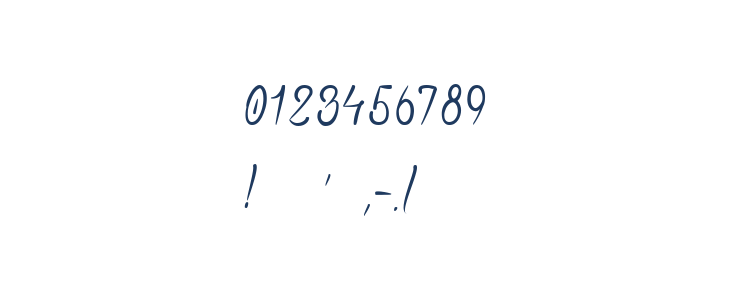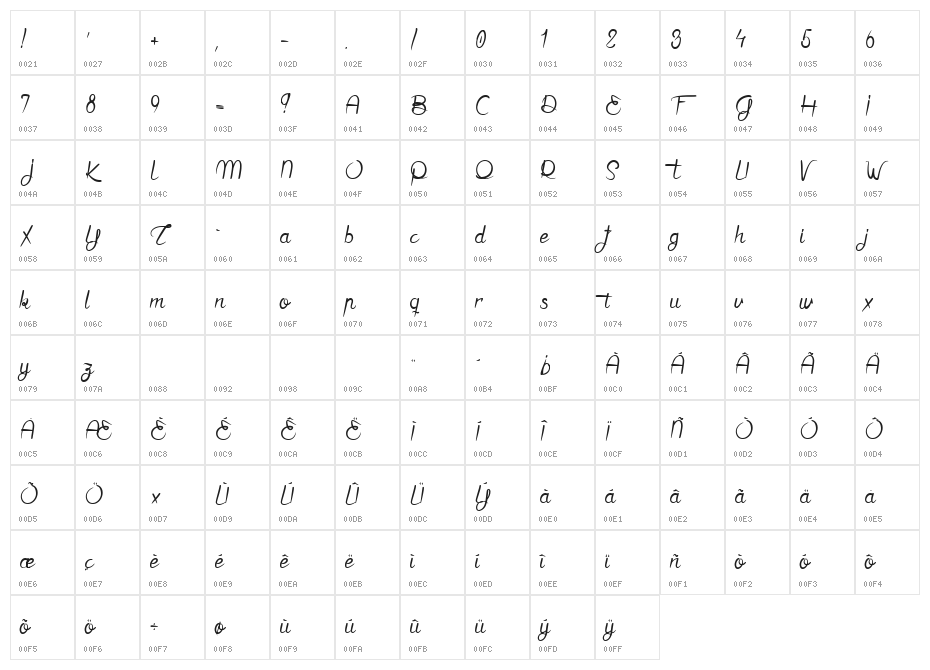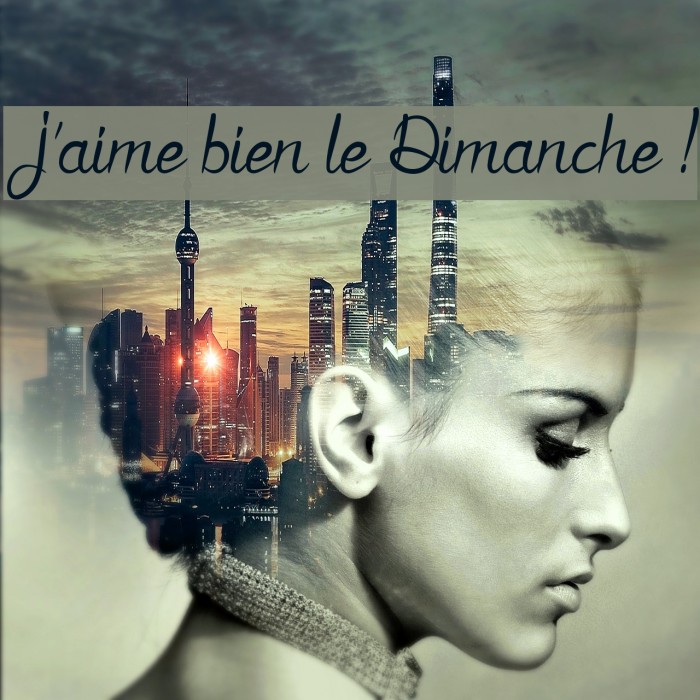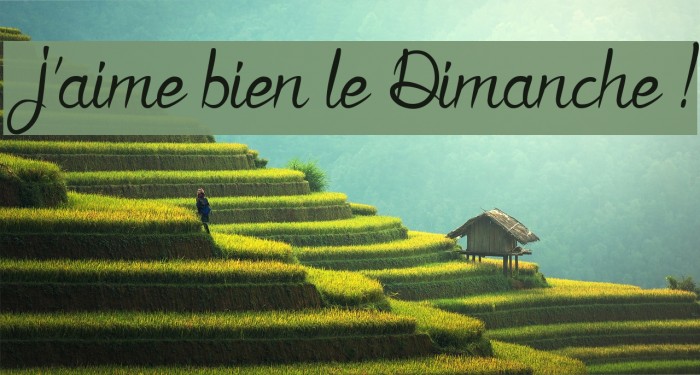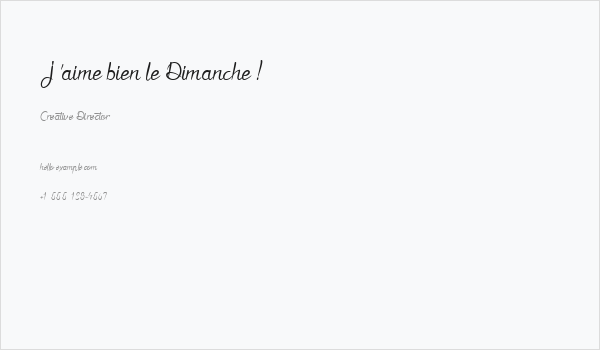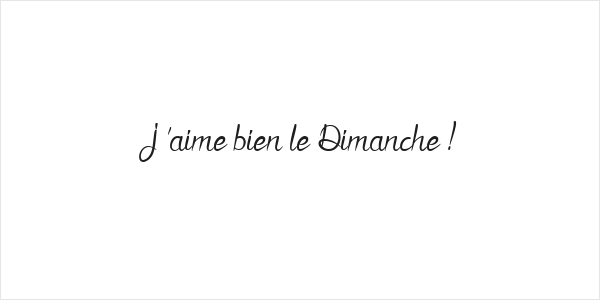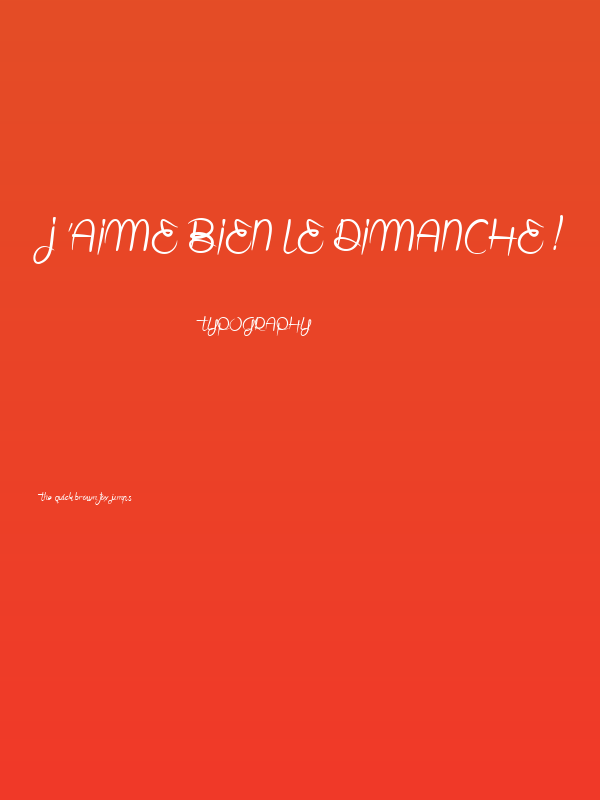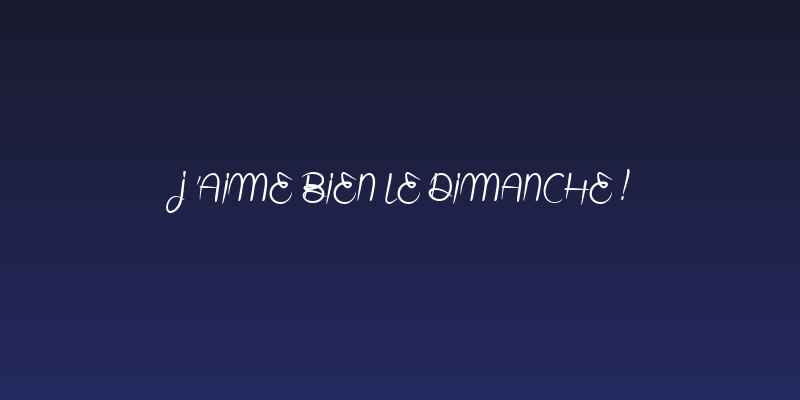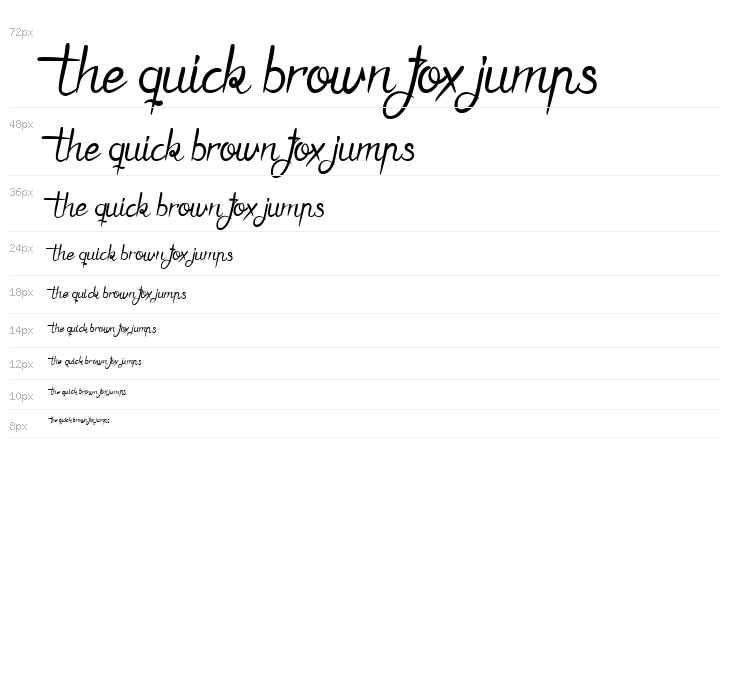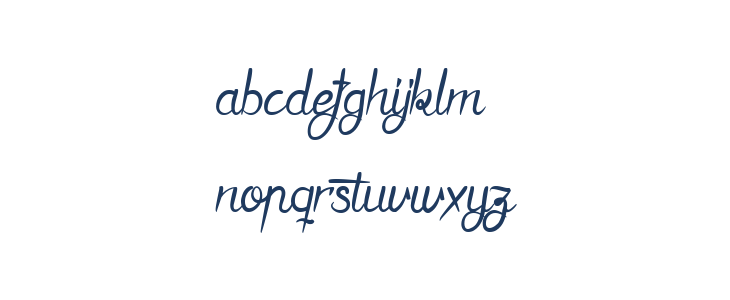
J'aime bien le Dimanche ! Font
J'aime bien le Dimanche ! Description
This font features a playful and dynamic script style, characterized by its flowing, interconnected letters and a sense of movement. The uppercase letters are bold and expressive, with unique flourishes that add a touch of elegance. The lowercase letters maintain a consistent style, with smooth curves and loops that enhance readability. Numbers are clear and distinct, matching the overall aesthetic of the font. Special characters are creatively designed, integrating seamlessly with the rest of the typeface. The font's overall appearance is both artistic and approachable, making it suitable for a variety of creative applications.